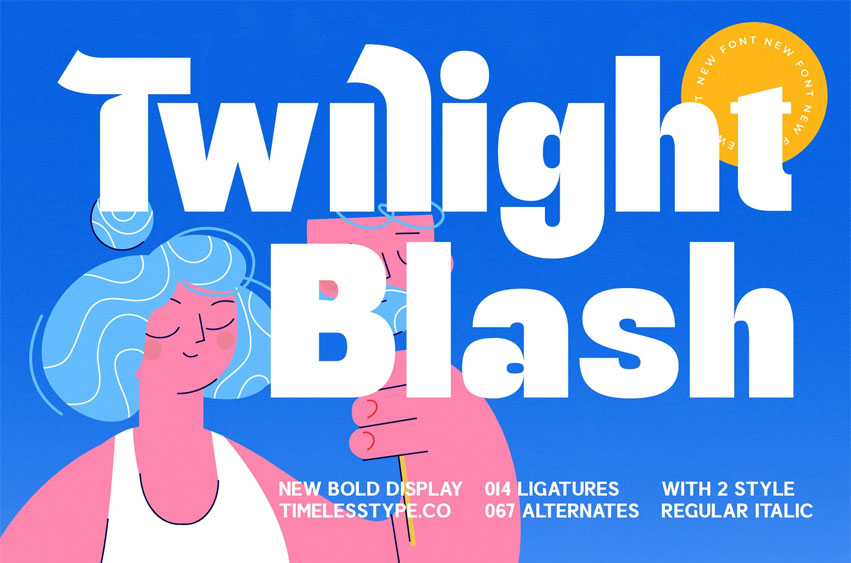
Twilight Blash Font
Twilight Blash Font is a bold, modern display font with strong shapes and playful energy, designed to make your projects stand out. Featuring unique ligatures and creative alternates, this typeface is perfect for logos, posters, social media graphics, packaging, branding, and editorial layouts.
With its contemporary style and bold personality, Twilight Blash is a versatile choice for both print and digital designs, bringing freshness and creativity to any project.